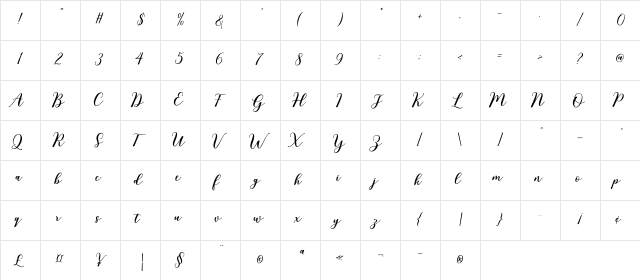
Rixiline Script Regular
| Foundry | Barland Design |
| Designer | Barland Design |
Design Context for Rixiline Script Typeface
Rixiline Script brings a calligraphic fluidity to the page — its connecting strokes and expressive curves give it an unmistakably human quality.